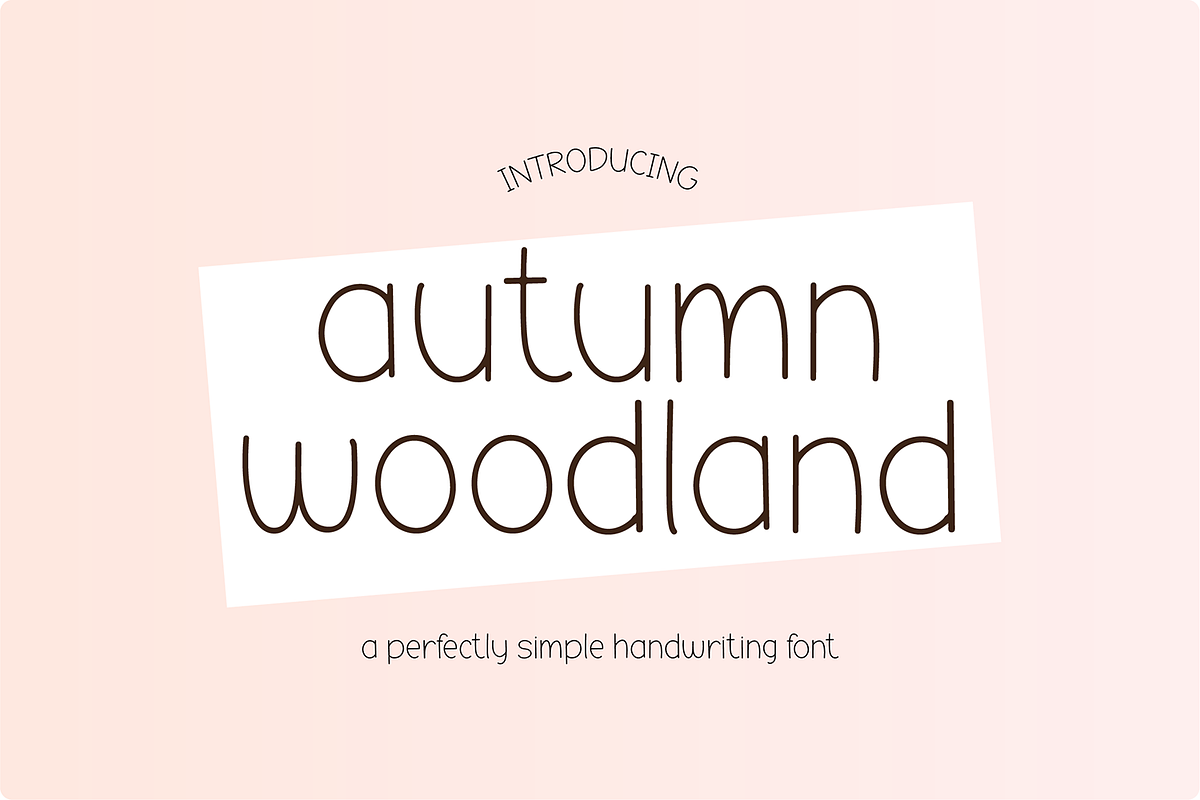
AUTUMN WOODLAND Skinny Handwriting Font Free Download is a delicate and elegant handwritten typeface inspired by the beauty of autumn. With its thin, flowing strokes and organic curves, this font is perfect for creating warm, personal designs, such as seasonal invitations, greeting cards, autumn-themed branding, and more.
The font’s graceful, slender design evokes the softness and charm of handwritten text, making it ideal for projects that need a touch of nature-inspired warmth and sophistication. Whether you're working on a fall event, a cozy seasonal product, or personalized stationery, AUTUMN WOODLAND brings a soft, inviting feel to your typography.